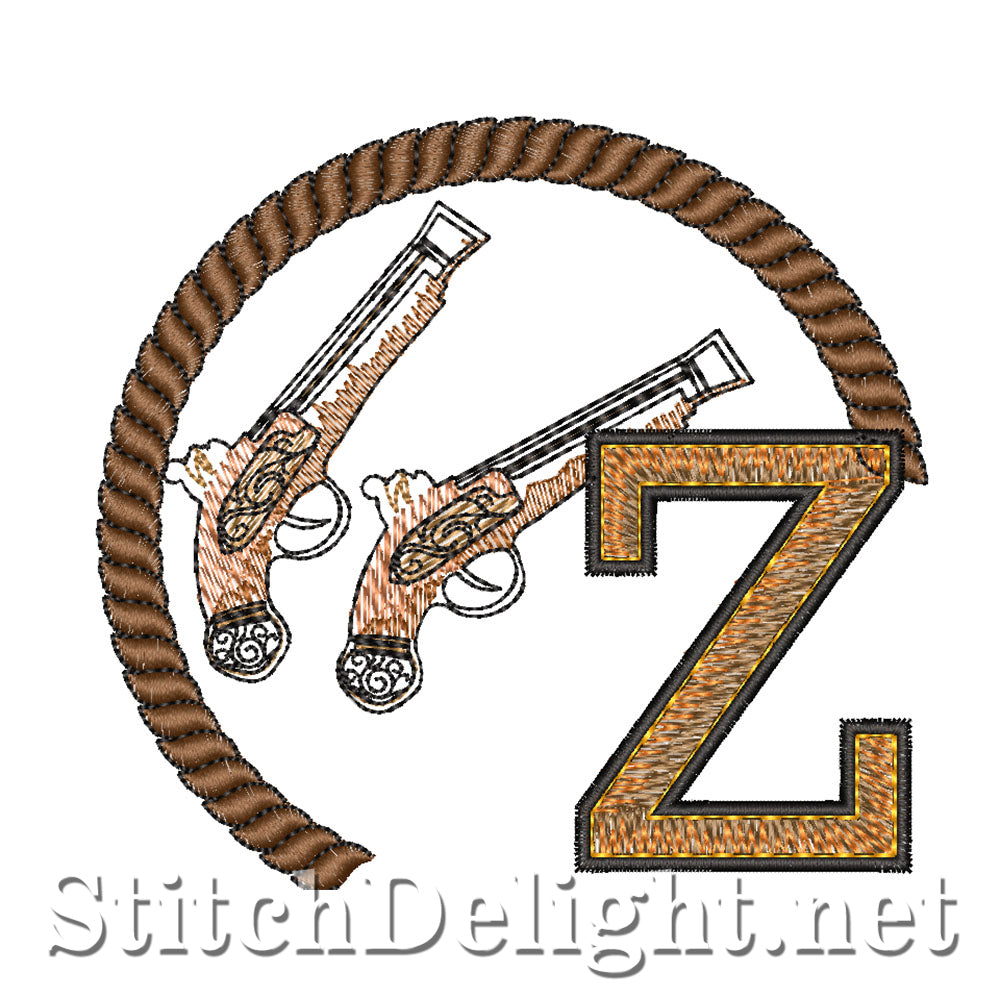
SDS3235 Western collectors Font Z
A captivating blend of nostalgia and Western charm. Standing at 3.65 inches tall, each letter is encased within an intricate rope frame, adorned with vintage illustrations. A wagon, wind pump, sheriff's badge, flintlock pistols, and a skillful rope motif enhance the timeless appeal of this font set. Elevate your projects with a touch of rustic elegance.